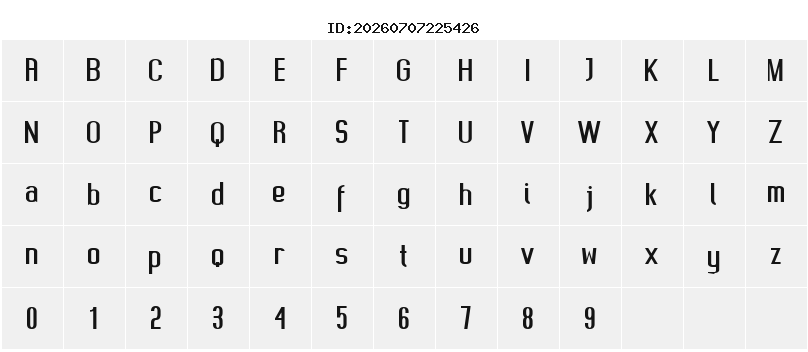
Dark Palladin Preview
• Font Name: Dark Palladin
• Full Font Name: Dark Palladin
• Designer: atrax
• Manufacturer: atrax
About Dark Palladin.ttf
Dark Palladin.ttf is a modern, elegant sans-serif font designed for ultimate readability and visual harmony. Perfect for branding, headlines, web design, and print materials.